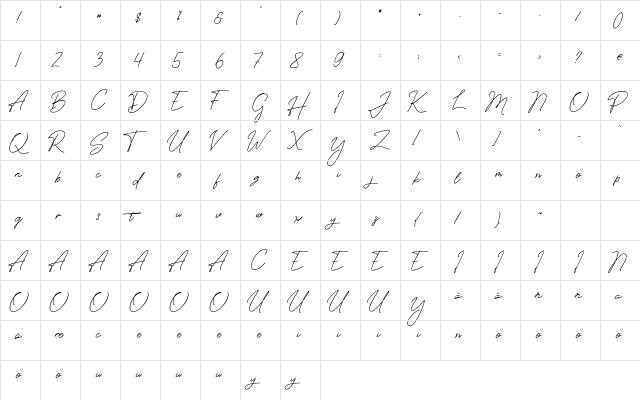
ThePrestigeSignature Regular
| Designer | Sigit Dwipa |
Design Context for ThePrestigeSignature Typeface
ThePrestigeSignature is a composed and adaptable typeface that performs quietly and consistently across a wide range of design contexts.